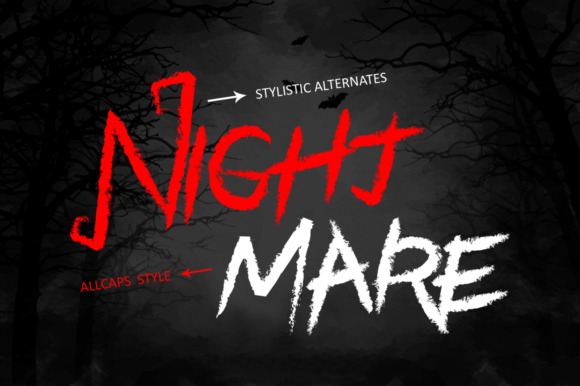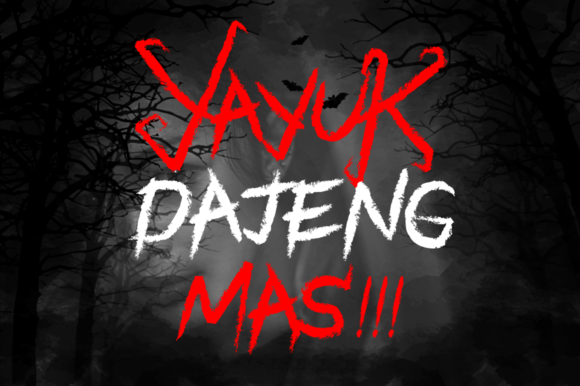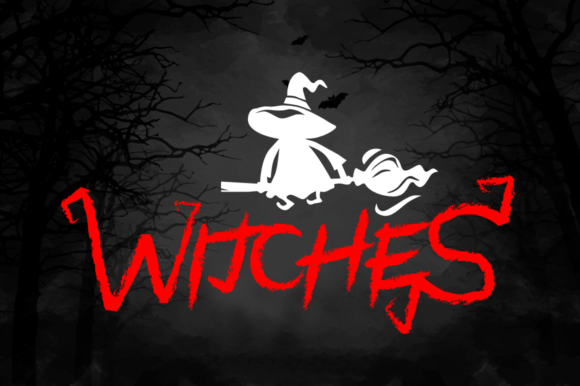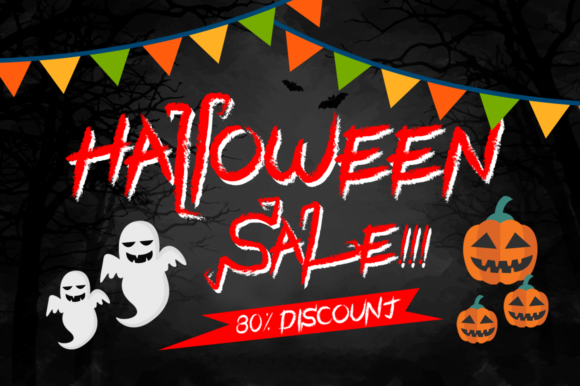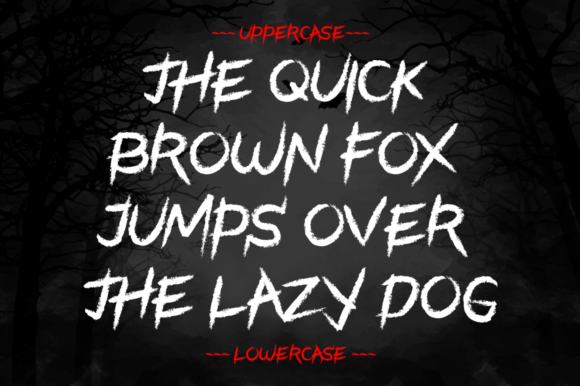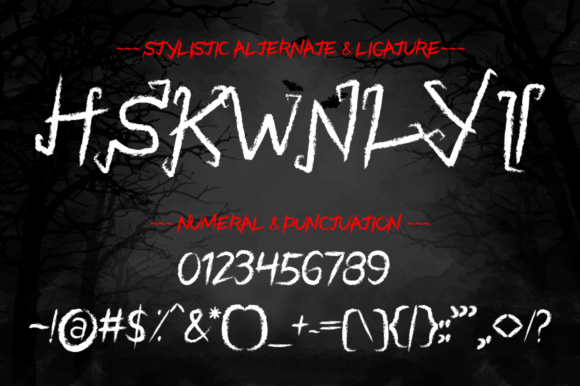
Spooky Season Just Got a Whole Lot Cooler
As the leaves start to change and the air grows crisp, I find myself itching to get creative with the scariest time of the year. There’s something about Halloween that sparks a sense of imagination and playfulness in me, and I’m sure I’m not alone. Whether it’s crafting spooky decorations, making wicked costumes, or baking bewitching treats, I love how Halloween inspires us to think outside the box and get crafty.
That’s where the Black Halloween Font comes in – the perfect addition to any Halloween craft. This font is the ideal companion for designers looking to add a touch of darkness and whimsy to their projects. With its eerie, gothic letters, it’s sure to take your Halloween crafts to the next level. As a designer, you know how hard it can be to find the perfect font to match your creative vision, and that’s exactly what makes the Black Halloween Font so valuable.
Black Halloween Font Key Features
- Unique Characteristics: The Black Halloween Font features a unique, hand-drawn design with intricate details and a spooky atmosphere, perfect for Halloween-themed designs.
- Number of Glyphs: This font includes a wide range of glyphs, including uppercase and lowercase letters, numbers, and special characters, making it versatile for various design projects.
- Style: The font has a bold, gothic style with a touch of elegance, adding a sophisticated twist to Halloween-themed designs.
Designer Review: Black Halloween Font
First impressions count, and the Black Halloween Font certainly makes an impact. The spooky aesthetic is perfect for the season, and the font itself is well-crafted.
- Unique and distinctive design that stands out from more common fonts.
- Perfectly captures the eerie and mysterious vibe of Halloween.
- Looks great in both digital and print formats.
The font’s bold lines and eerie feel make it ideal for titles, headings, and other prominent text elements.
- Might be too dark or heavy for certain applications, such as body text or long passages.
- May not be suitable for more formal or professional projects.
Overall, the Black Halloween Font is a great choice for designers looking to add some seasonal flair to their work. It’s a bold, eye-catching font that’s sure to grab attention. Just be mindful of its limitations and use it thoughtfully.
For the best results, use the “Black Halloween Font” for spooky or Halloween-themed designs. This font is ideal for posters, invitations, social media graphics, and other creative projects. Experiment with different font sizes and combinations to achieve a unique look.